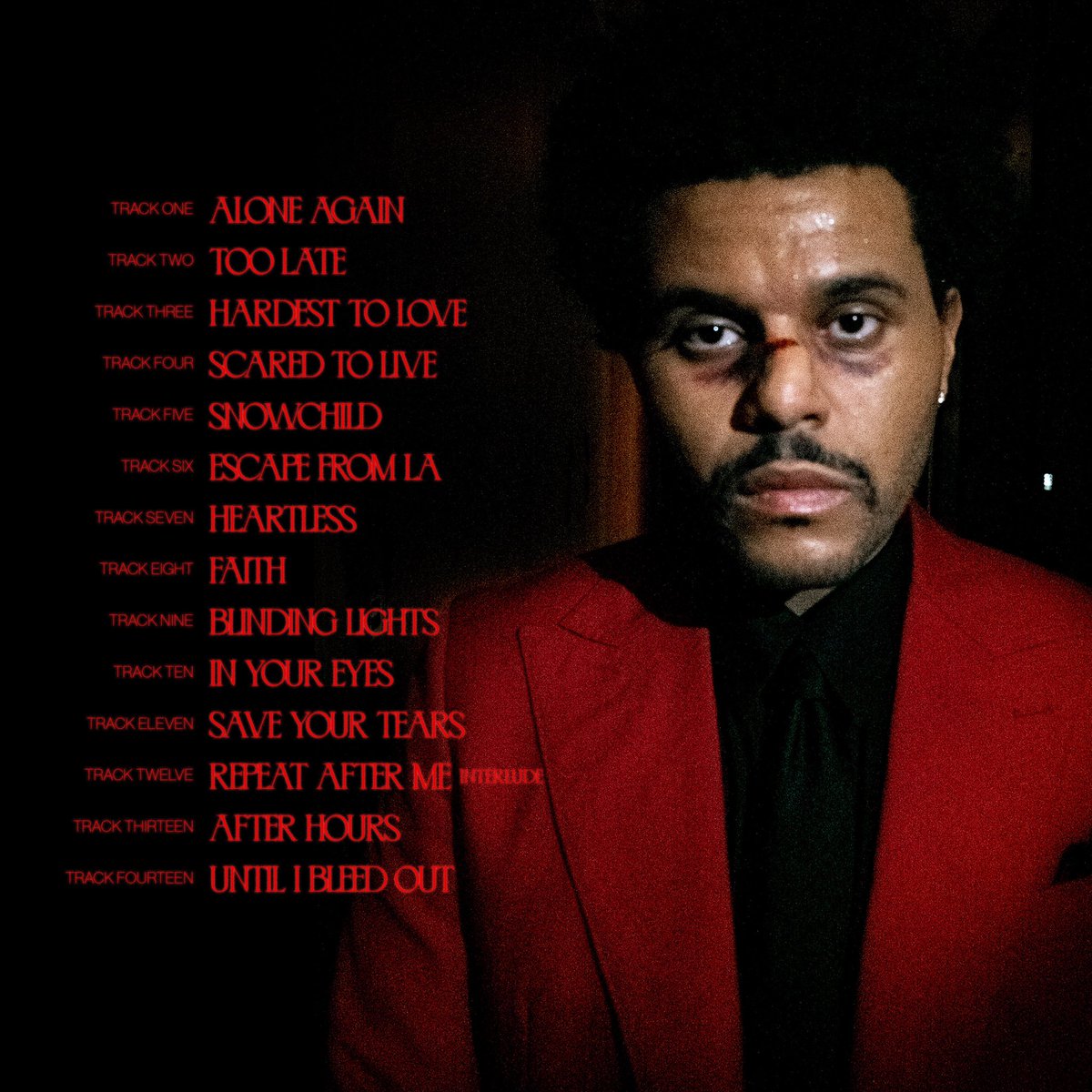
Fonts in UseAfter Hours is the fourth studio album by Canadian singer The Weeknd, released in 2020. The album features a dark and moody sound, exploring themes of heartbreak, isolation, and excess.
The back cover of After Hours features the track list in Abel Roman, a custom typeface by designer Aleksi Tammi for The Weeknd. Unfortunately, the font is not available for public use, but Gilar Studio's Goordy Regular is a recommended alternative with a similar aesthetic.